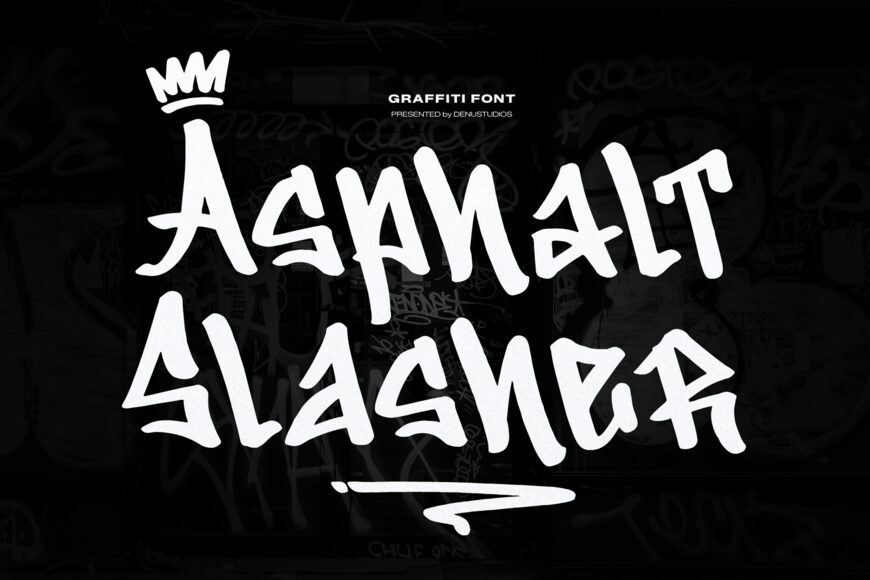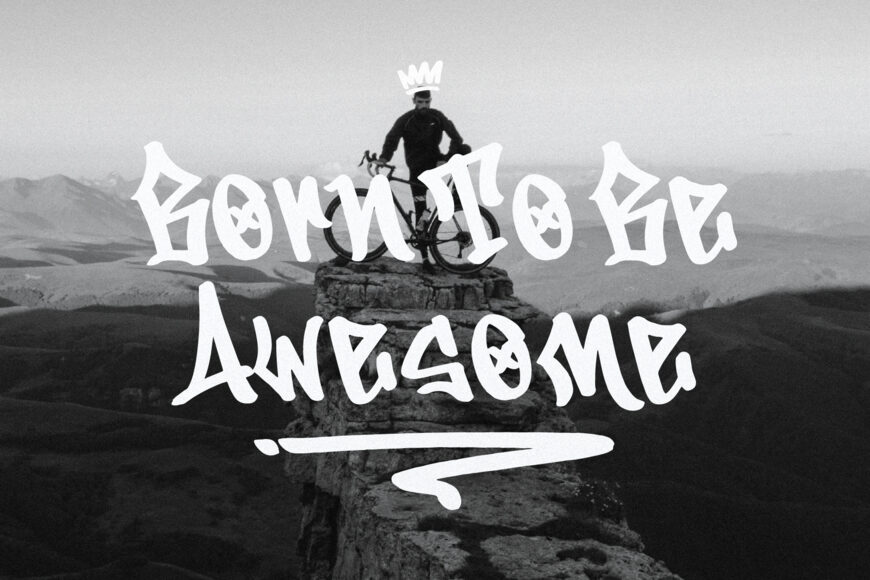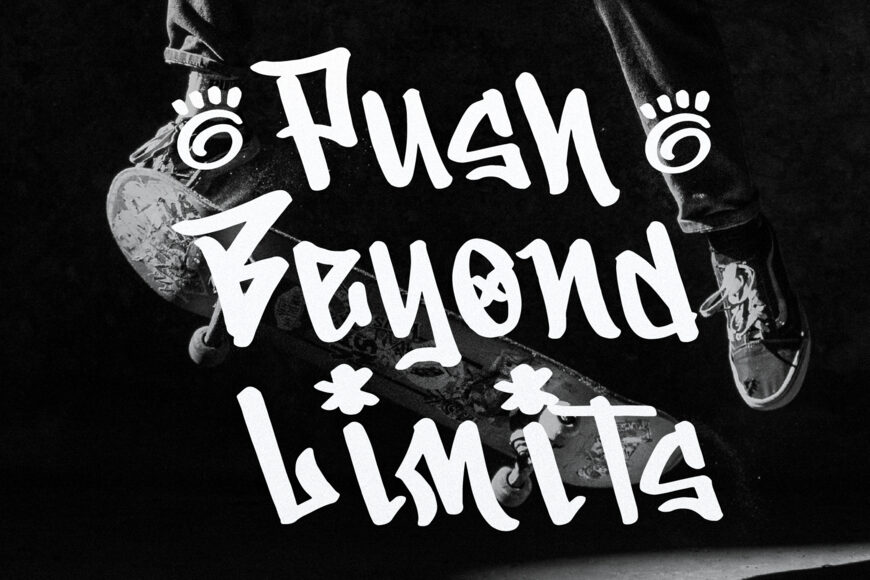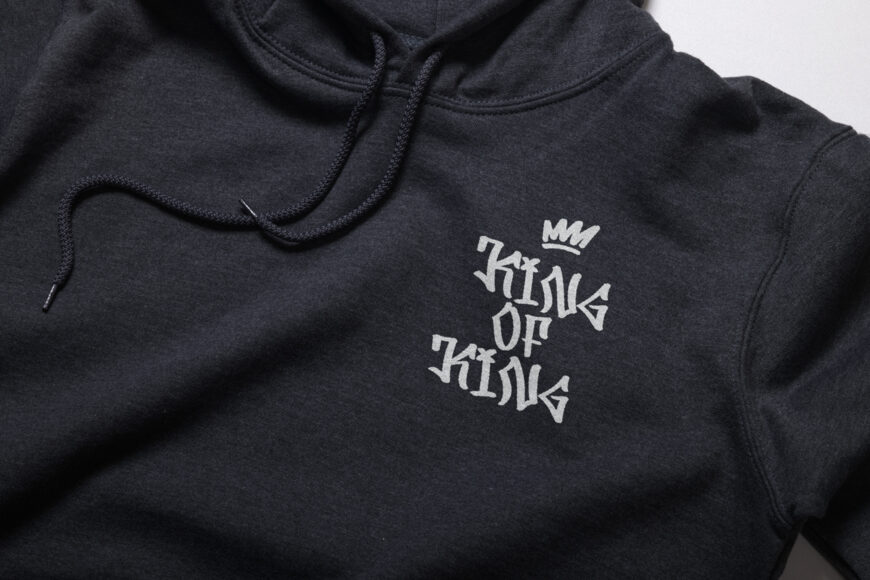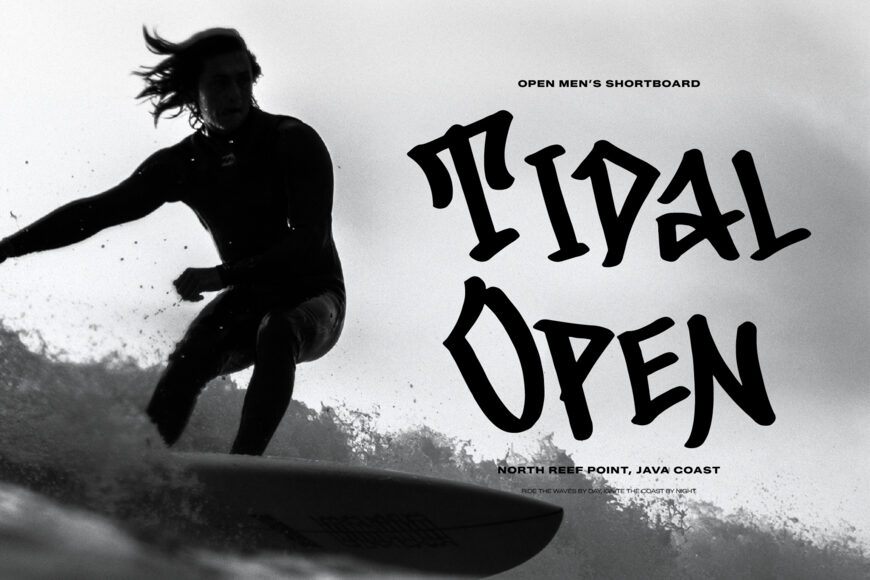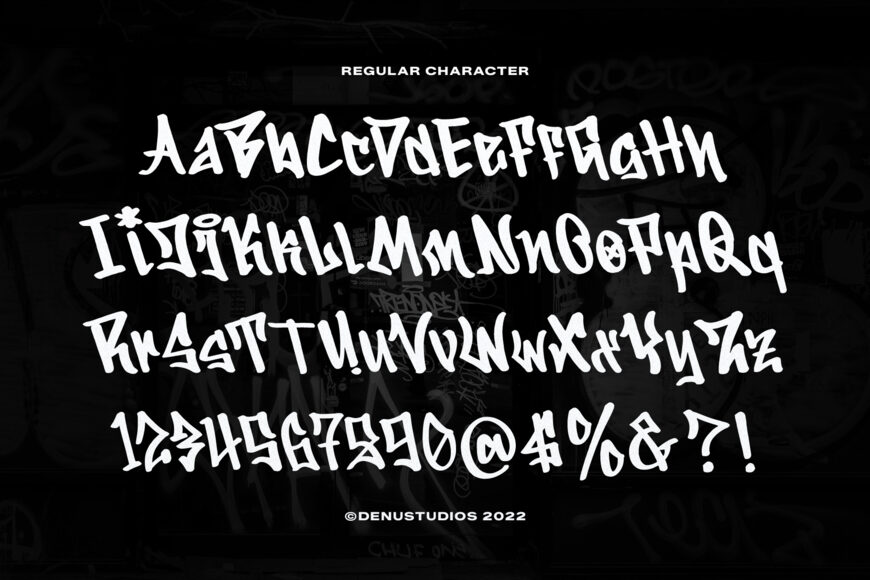
Unleash raw street attitude, gritty underground energy, and authentic marker tag flair with Asphalt Slasher! Crafted with sharp angular strokes, dynamic hand-tagged letterforms, and edgy crown accents, this graffiti display font delivers instant street-smart credibility to any design project.
Whether you’re creating urban streetwear apparel, hip-hop album covers, skate brand logos, poster art, event flyers, sticker packs, or custom vinyl craft SVG cut files, ASPHALT SLASHER cuts through the noise with unbeatable street authority!